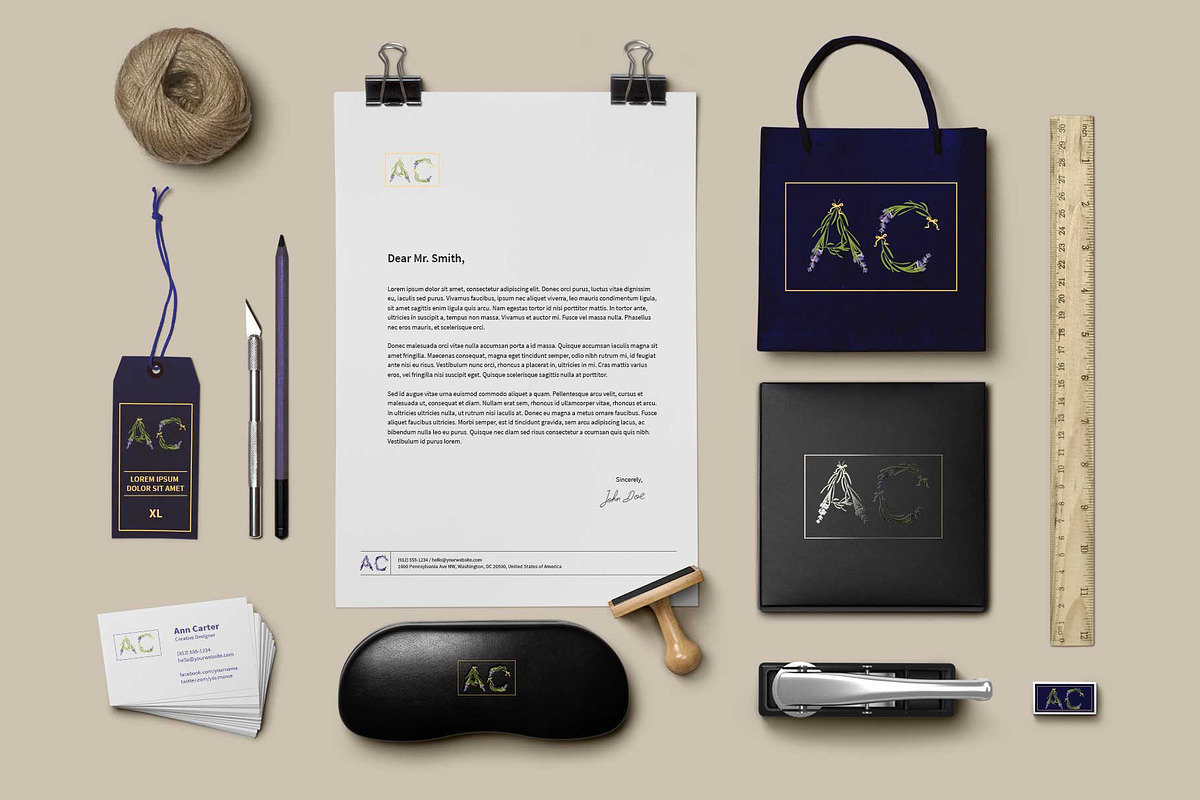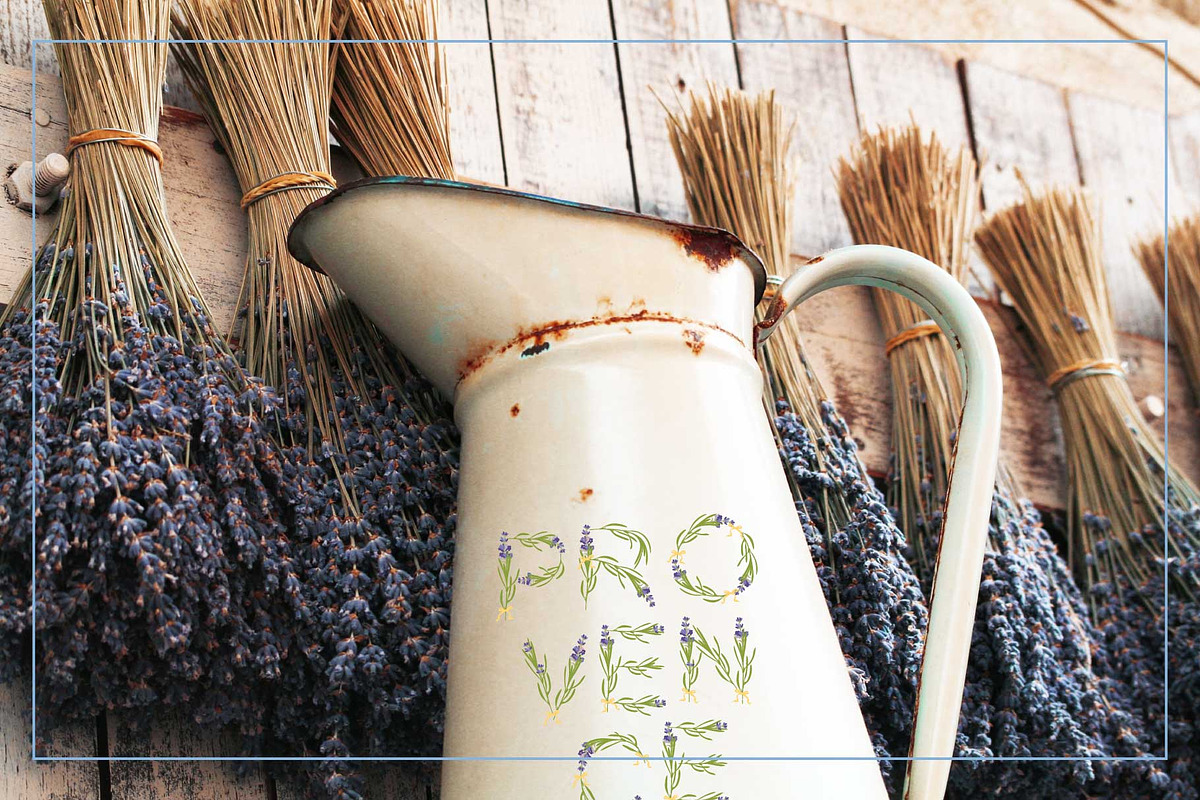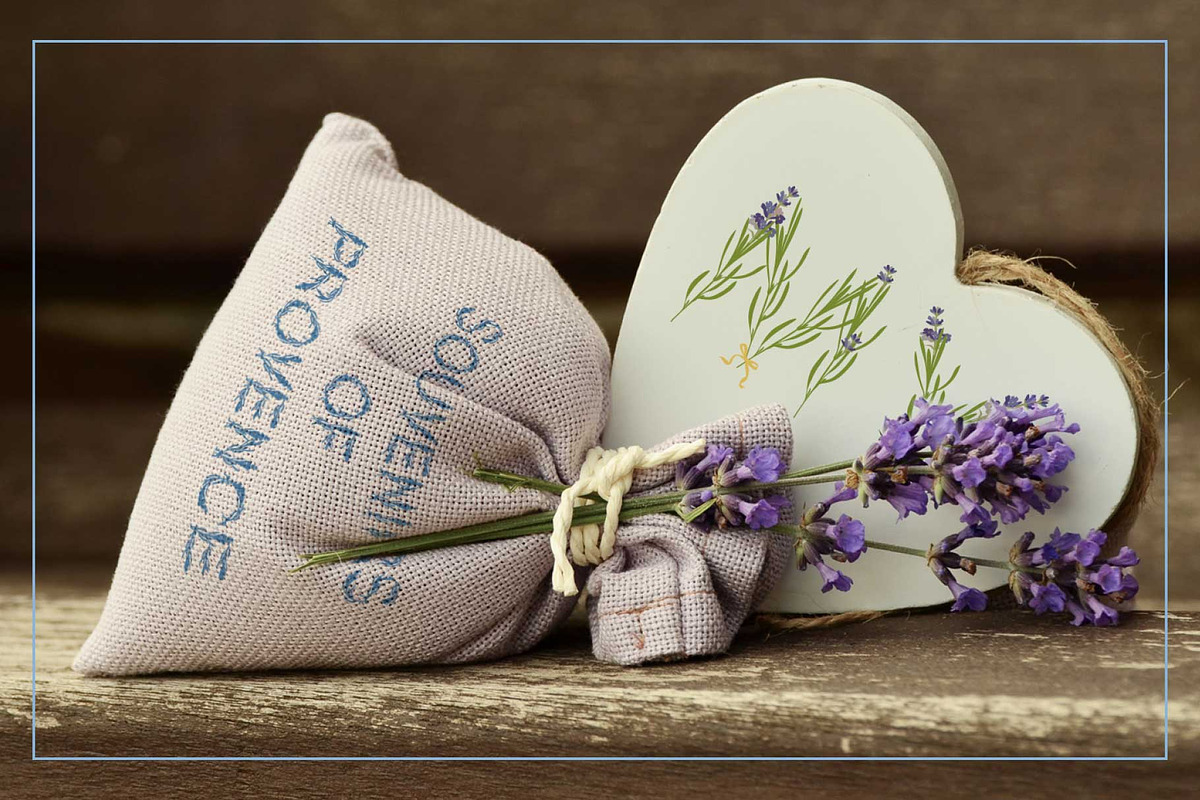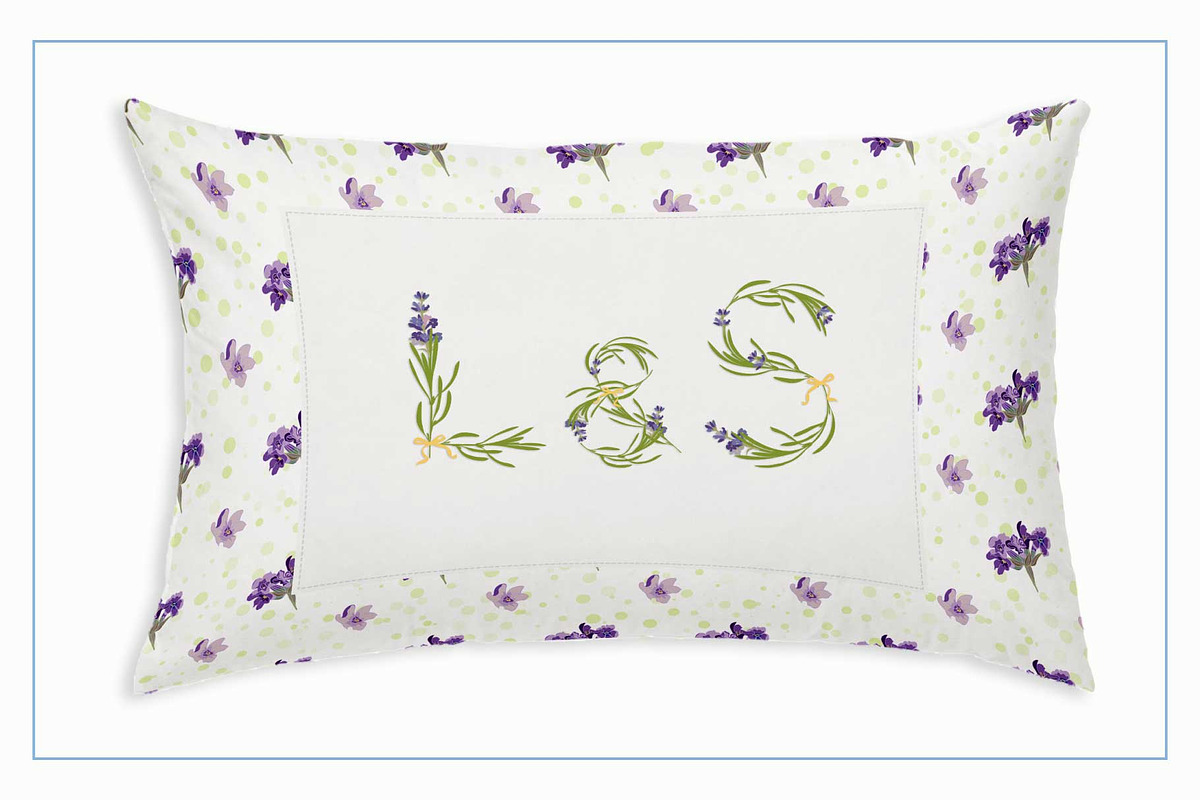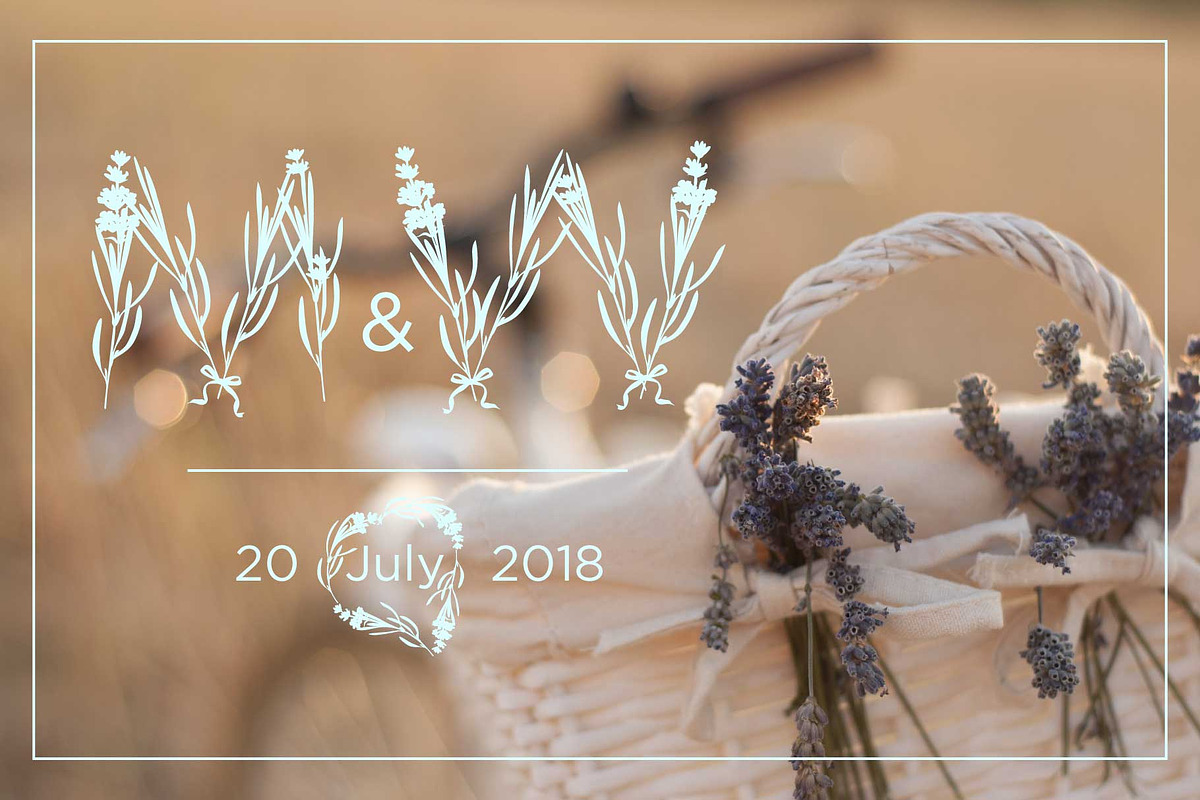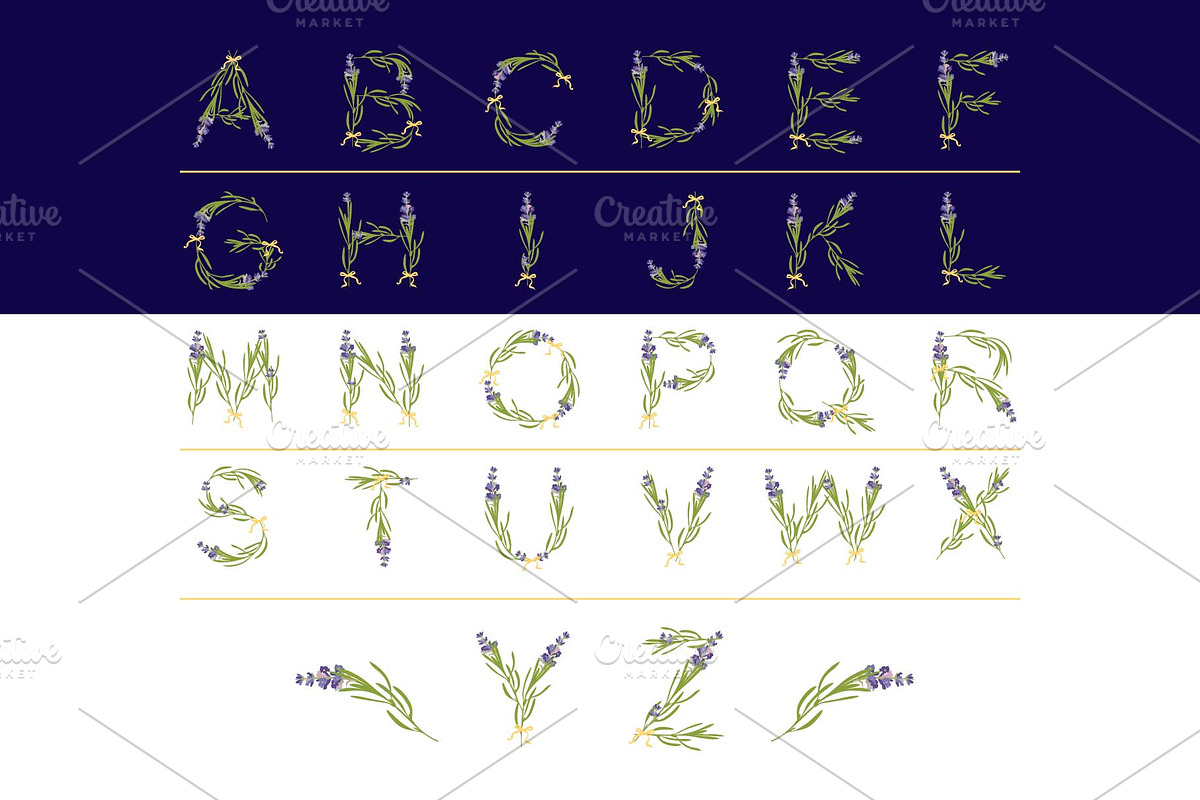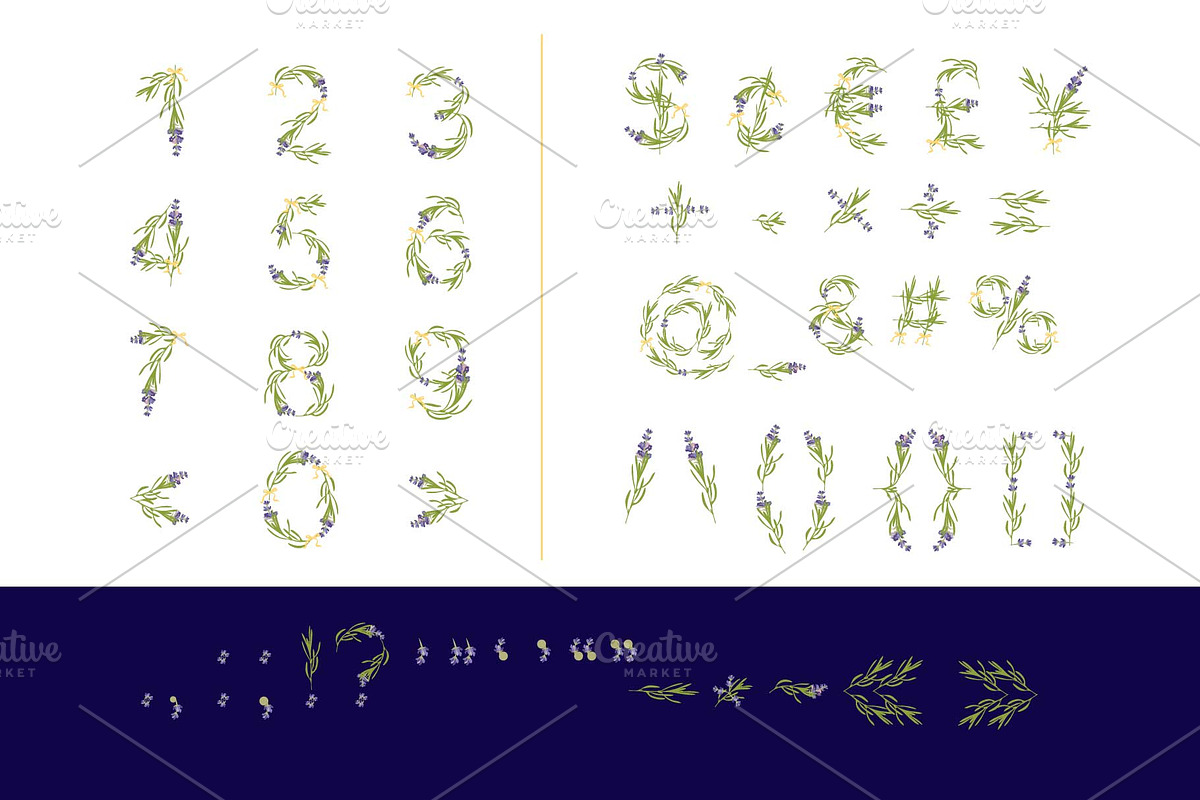
LAVENDER-TIME-Color font
LAVENDER-TIME-Color OTF-SVG multicolor font. Display font based on botanical illustration. You can use this font for design logos, monogram prints on t-shirts, children posters and love cards and… other.
- Contains CAPITALS letters, NUMERALS & DIGITS, PUNCTUATION.
LAVENDER-TIME-Color font by Zimages fits naturally into Branding, posters, packaging, typography.